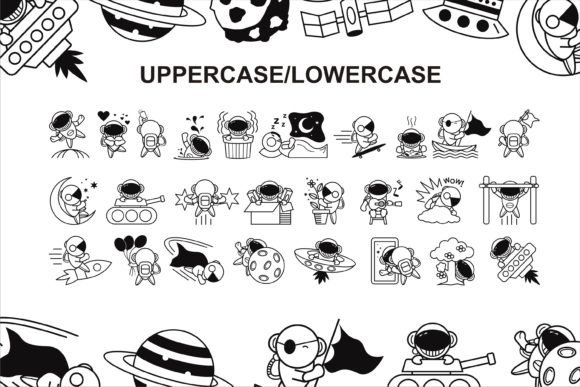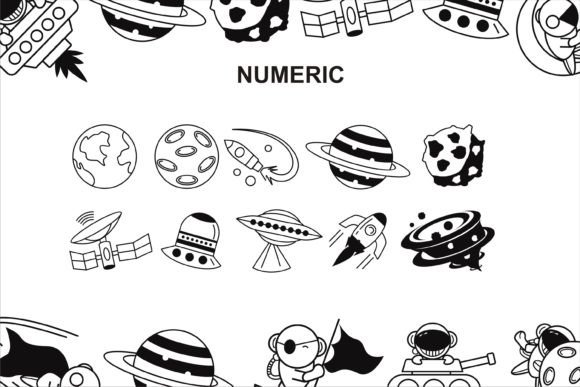
Astro Toon Font
ABOUT ASTRO TOON FONT
“Astro Toon” is a delightful font that features cartoon characters and themes inspired by astronauts and our planet. With its cute and attractive design, this font is perfect for creating designs related to astronomy education or children’s themes.
Whether you’re working on educational materials, posters, book covers, or any project that involves astronomy or space exploration, “Astro Toon” will add a playful and captivating touch. The font’s cartoon characters and astronaut elements bring a sense of fun and adventure to your designs, making them appealing to children and those with a love for outer space.
Embrace the cuteness and charm of “Astro Toon” to create engaging and visually appealing designs. Capture the imagination of your audience and spark their interest in astronomy with this attractive font. Let your creativity soar and bring your projects to life with the captivating characters and themes offered by “Astro Toon”!